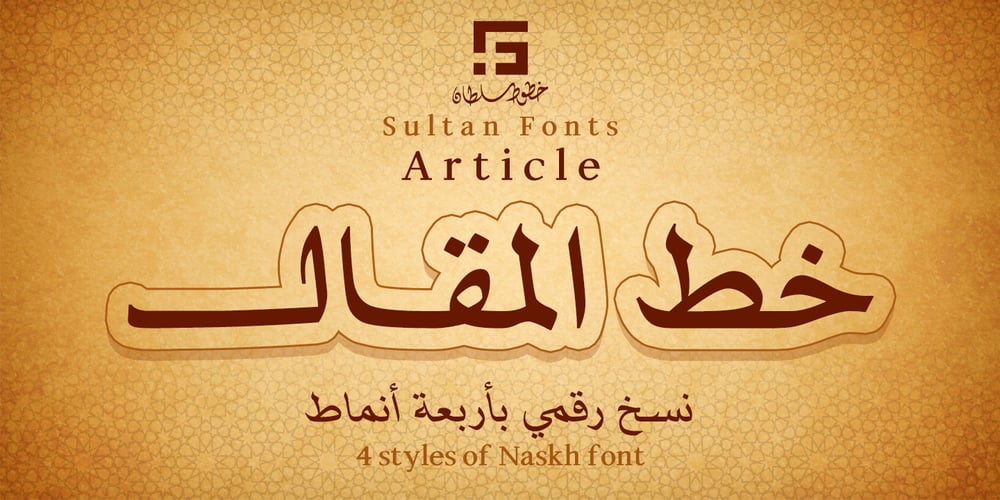
SF Article
SF Article font
SF Article Font Family was designed by Sultan Maqtari and published by Sultan Fonts. SF Article contains 4 styles and family package options. About Sf Article font family:Sf Article is An Arabic and Latin typeface for desktop applications ,for websites, and for digital ads. The main types of Sf Article font family weight are regular and bold.The regular weight is perfect for reading, it is helpful during long reads, Bold Sf Article styles are designed to draw attention to short phrases.The Sf Article font family is characterized by short heights and dynamic stretching of letters through the paragraph, where the space In the line is automatically filled.In Sf Article font family, we have developed two italic fonts: regular and bold, to help with the diversity of stylistic expression in the Article, document and research work.Sf Article typeface comes with many OpenType features including stylistic sets. Designer: Sultan MaqtariDesign date: 2021Publisher: Sultan Fonts